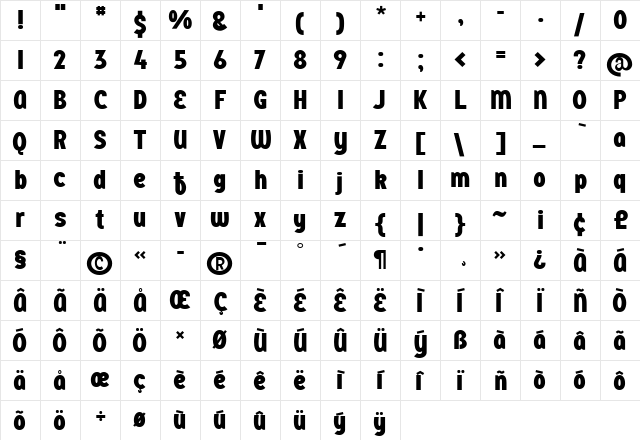
Sister Black
Design Context for Sister Typeface
Sister is a composed and adaptable typeface that performs quietly and consistently across a wide range of design contexts.